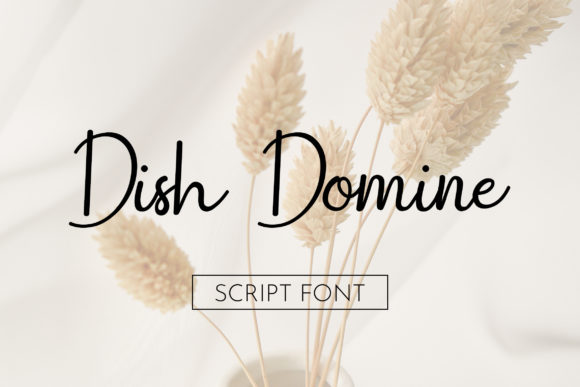
Dish Domine: A Designer’s Real Talk Review
First Impressions: Elegant, Expressive, and Deliberately Dramatic
From the moment Dish Domine hits the screen, it commands attention. It’s not a font that sneaks into a layout—it makes an entrance. The script has a fluid, almost calligraphic rhythm with a touch of modernity that keeps it from feeling overly ornate. Each letter feels like a deliberate stroke, balancing control and flair. It’s the kind of typeface that says, “I’m confident, but not trying too hard.” Visually, it leans toward the elegant side of the script spectrum, with a subtle warmth that makes it feel accessible despite its high-end vibe.
If fonts had personalities, Dish Domine would be the stylish friend who always knows what to wear to a dinner party—polished, a little mysterious, and effortlessly memorable. It’s not the kind of font you use for body copy, but it absolutely shines when given center stage.
Real-World Performance: Where Dish Domine Shines
As a designer who’s worked on everything from brand identities to product packaging, I always look for fonts that perform well in specific contexts. Dish Domine is best suited for short-form, high-impact applications. Here’s where it really delivers:
- Logo design: It adds a touch of sophistication and individuality, especially for lifestyle, beauty, or boutique brands.
- Brand identity: Works well as a secondary typeface to elevate brand marks or taglines.
- Packaging design: Ideal for premium product labels, especially in food, fashion, or artisanal markets.
- Print materials: Flyers, invitations, and posters benefit from its expressive tone.
- Social media graphics: Adds personality and visual hierarchy to curated feeds and stories.
- Printable products: From Canva templates to digital planners, Dish Domine brings a polished finish.
- Cricut projects: It scales beautifully for vinyl cuts and handcrafted signage.
What makes Dish Domine stand out is its versatility within its niche. While it’s clearly a display font, it’s not one-note. It can be dressed up or down depending on the surrounding design elements and color choices. Pair it with a clean sans serif like Helvetica or a soft serif like Georgia, and it becomes a powerful visual anchor without overwhelming the composition.
Where to Use Dish Domine Carefully
Like any expressive font, Dish Domine requires thoughtful application. It’s best reserved for moments where visual impact matters more than readability:
- Large headlines: Perfect at a distance or in bold, but avoid using it in tiny print.
- Short phrases: Great for quotes, titles, or accent text—but not for long paragraphs.
- Brand marks: Works well in logotypes, but ensure it’s legible across mediums.
- Decorative accents: Ideal for flourishes, dividers, or signature touches in editorial layouts.
- Premium packaging: Use it to elevate a product’s perceived value, but test it in print first.
- Social posts: Makes a strong visual statement, especially when used sparingly.
It’s also not a font to rely on for functional design. Avoid using it in supporting text, navigation bars, or anywhere clarity is more important than flair. It’s a script font, not a workhorse, and treating it like one will only lead to frustration.
Impact on Design Fundamentals
When evaluating a font like Dish Domine, it’s important to look beyond aesthetics and consider how it affects key design principles:
- Readability: Strong at larger sizes but drops off quickly below 14pt. Not suitable for body text.
- Hierarchy: Naturally draws the eye—great for establishing visual order.
- Brand consistency: Can be a signature element, but must be used consistently across assets.
- Audience trust: Feels premium and intentional, which can boost perceived professionalism.
- Recognition: Unique enough to stand out, but not so eccentric that it feels out of place.
- Visual mood: Adds warmth, elegance, and a touch of whimsy—ideal for brands with a personal touch.
- Engagement: In digital or print ads, it can boost attention and memorability.
It’s a font that says something about the brand or project using it. If your goal is to feel approachable yet refined, Dish Domine could be a great fit.
Practical Designer Notes: Before You Commit
Before locking in Dish Domine for a client or personal project, here are a few practical checks I always run:
- Test in black and white: Some script fonts lose character without color. Dish Domine holds up well in monochrome.
- Check small-size readability: Try it at 12pt or smaller—spoiler: it doesn’t read well.
- Try it on real mockups: See how it looks on packaging, apparel, or digital templates before finalizing.
- Compare uppercase vs. lowercase: Lowercase has more personality, but uppercase can be more readable in some contexts.
- Review spacing: Kerning is tight in some letter pairs, so adjust manually if needed.
- Test beside other fonts: See how it pairs with serif, sans serif, script, handwritten, and display fonts to ensure harmony.
Whether you’re designing a boutique logo, a wedding invitation, or a Canva template for digital sellers, Dish Domine earns its place in the toolkit. Just remember—it’s a spotlight player, not a background actor. Use it with intention, test it thoroughly, and pair it thoughtfully.